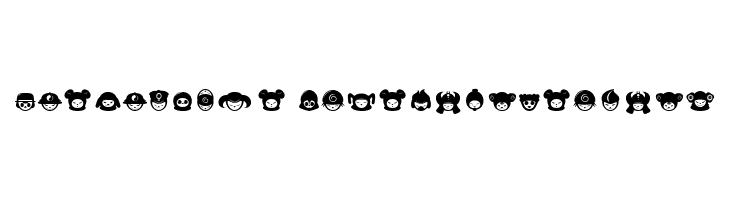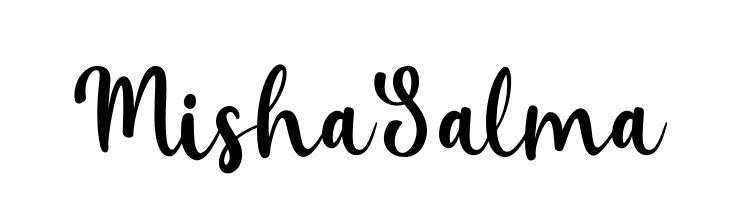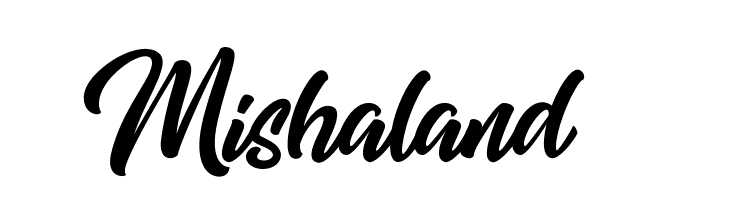
( Fonts by Allouse Studio )
Elegant, flowing script font with a handwritten style.
A bold, handwritten font with an expressive and dynamic style.
( Fonts by Kevin Christopher - www.kcfonts.com )
A bold, distressed font with a grungy, hand-crafted appearance.
( Fonts by dcoxy )
Cartoon character face dingbat font with bold, playful designs.
( Fonts by Rob Villareal )
A bold, distressed font with a rebellious, grunge aesthetic.
A bold, handwritten font with a playful and dynamic style.